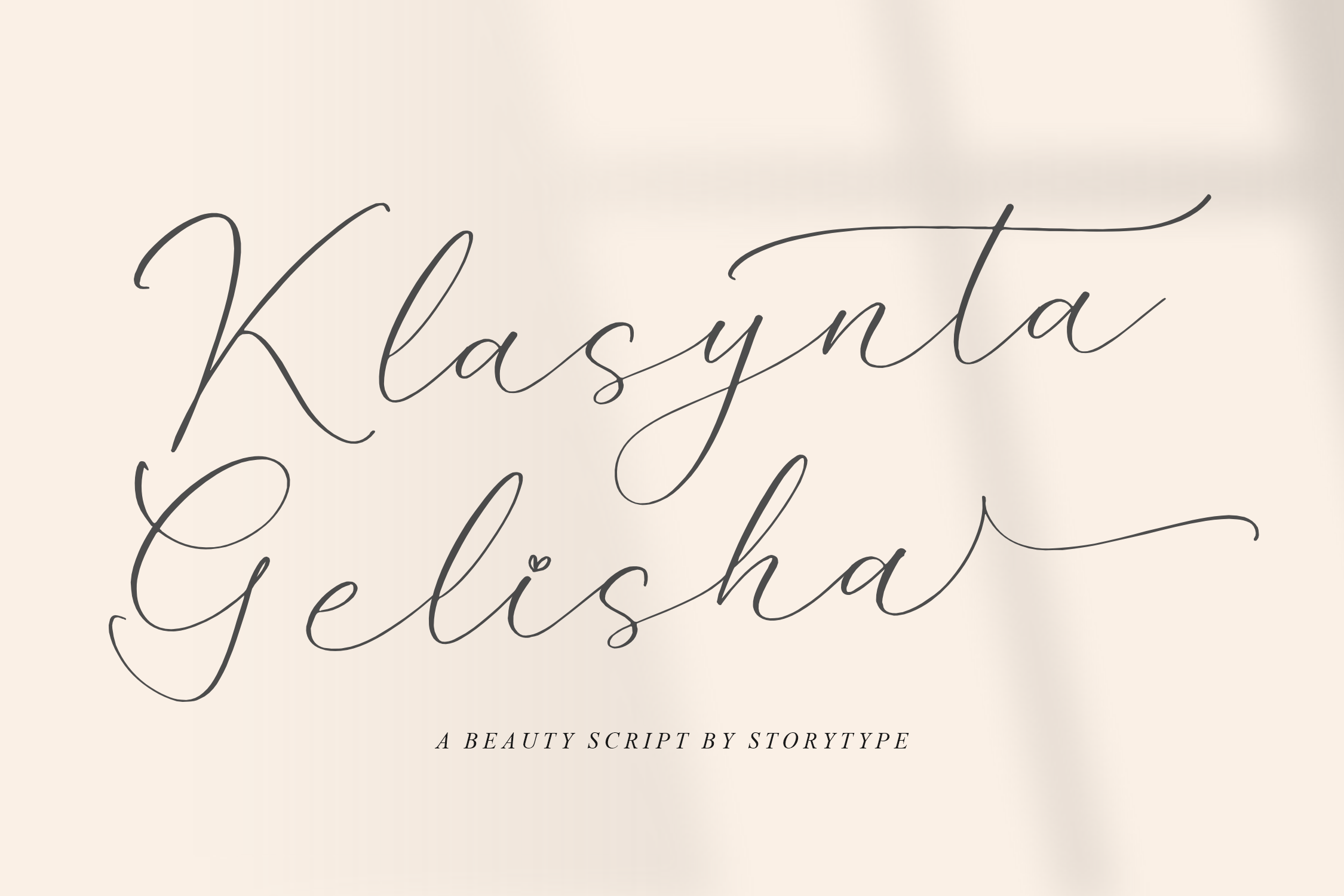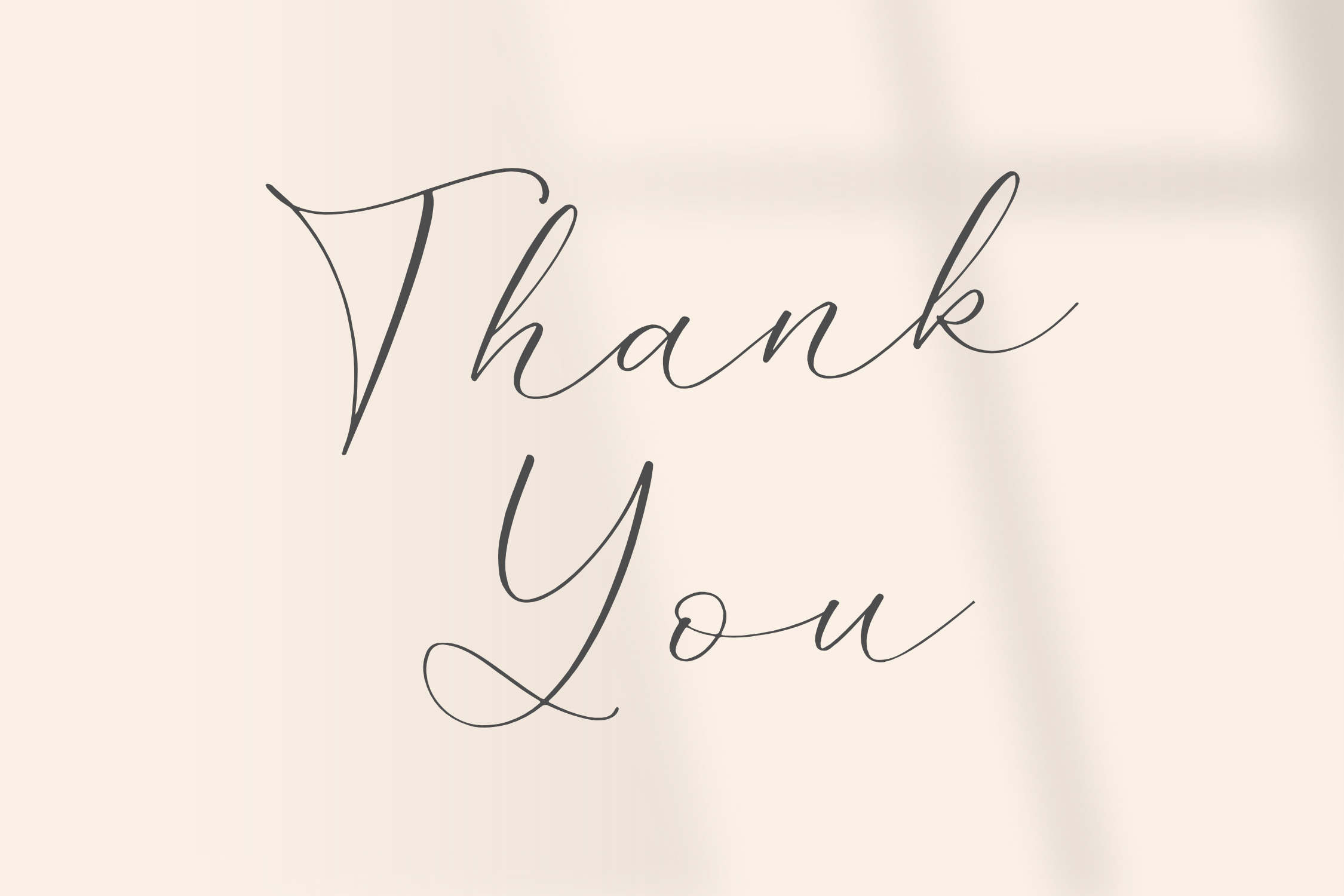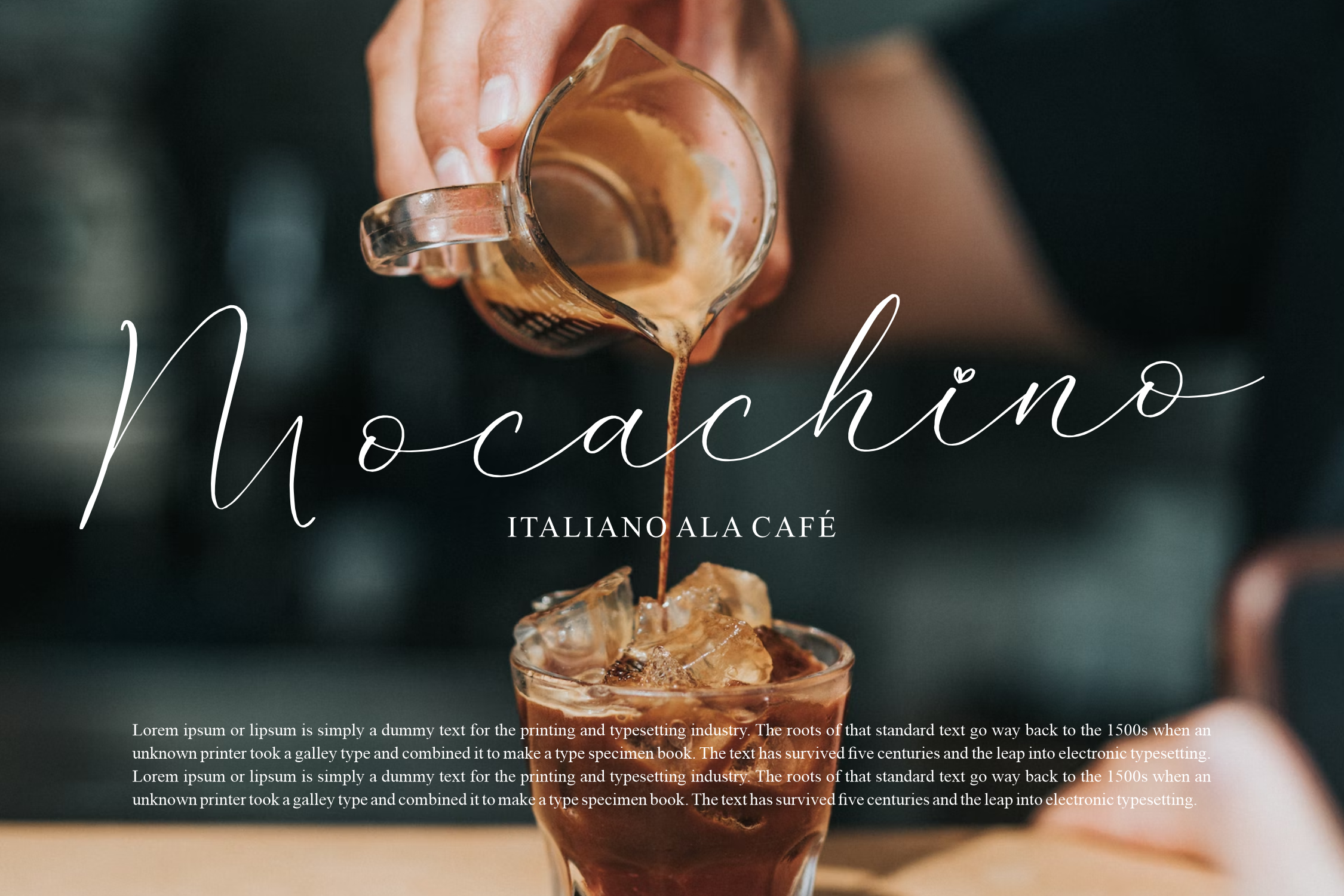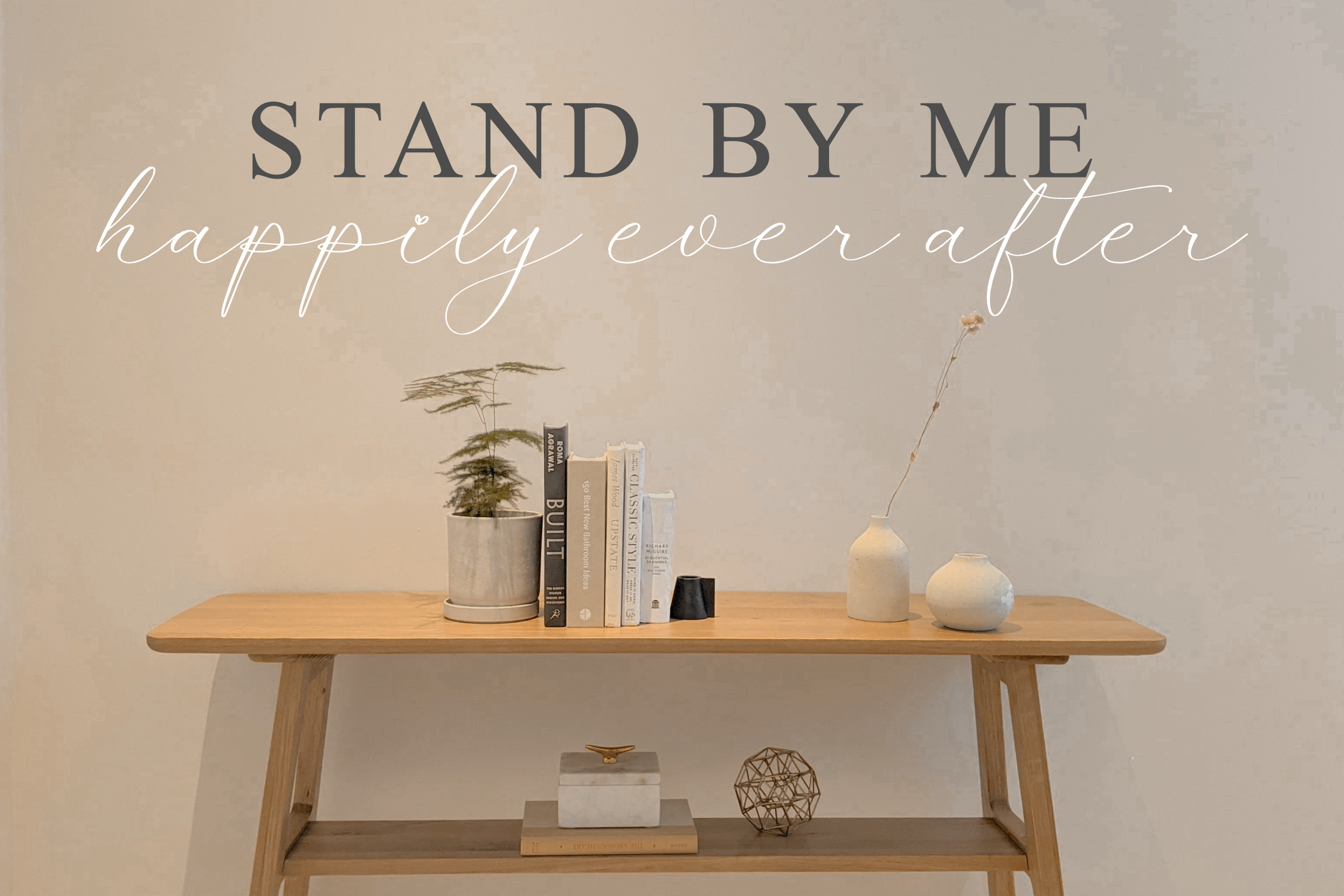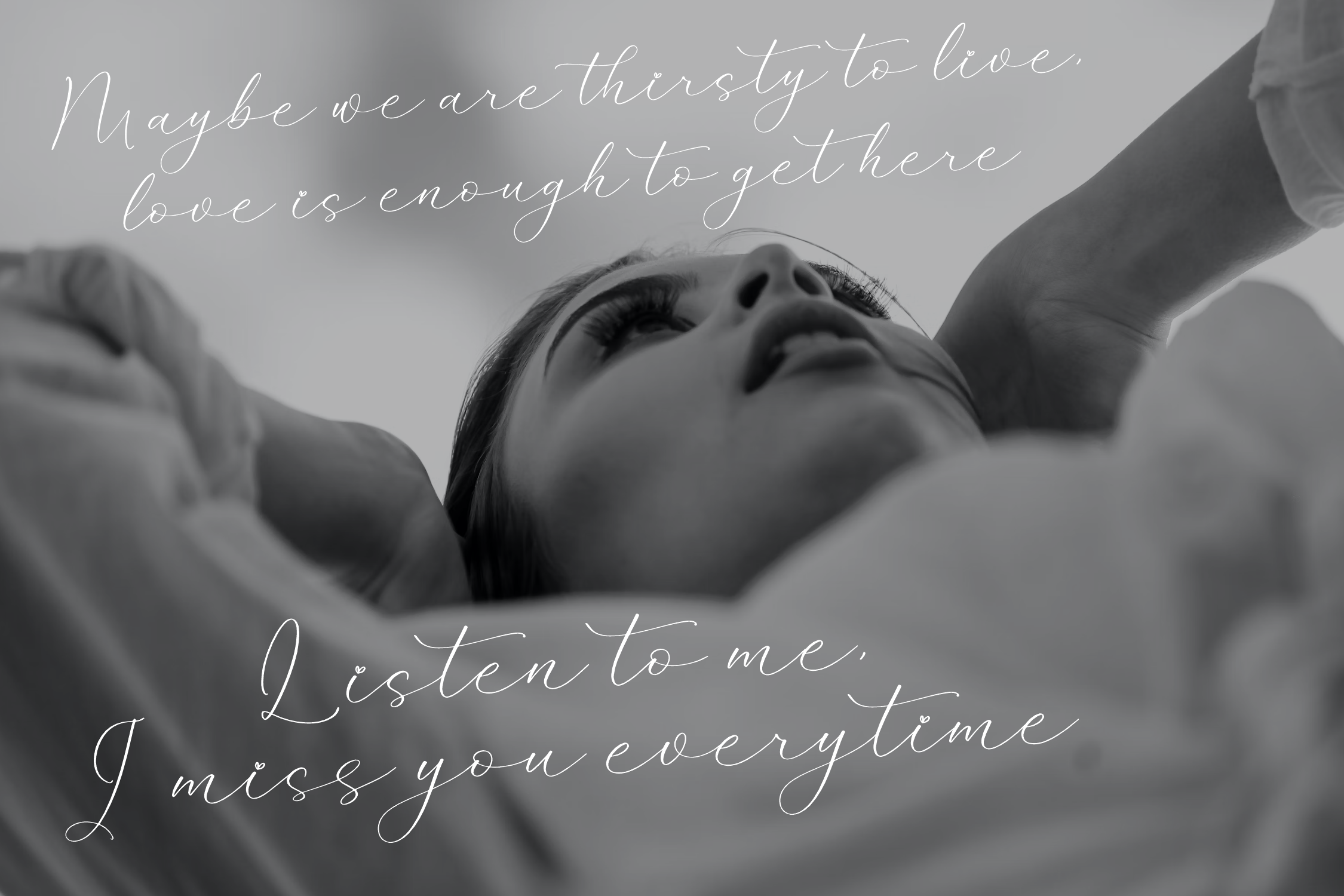
Klasynta Gelisha Font
Klasynta Gelisha Script Font is a luxury script that has own unique style & modern look. This typeface is perfect for an elegant & luxury logo, book or movie title design, fashion brand, magazine, clothes, lettering, quotes, and so much more.